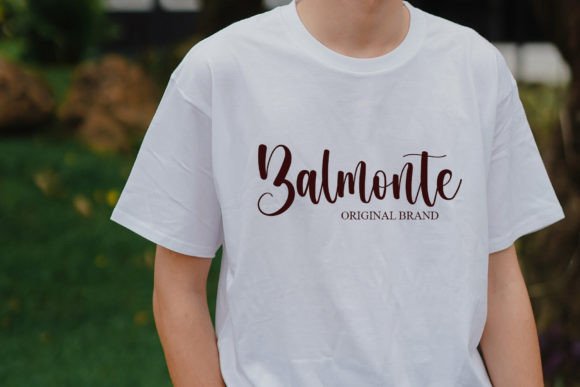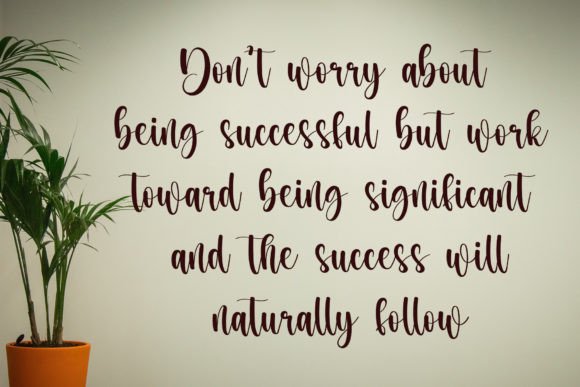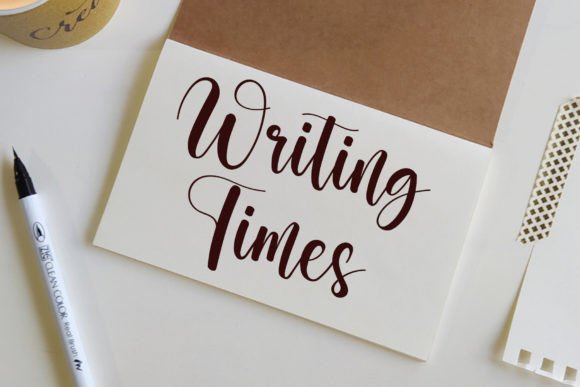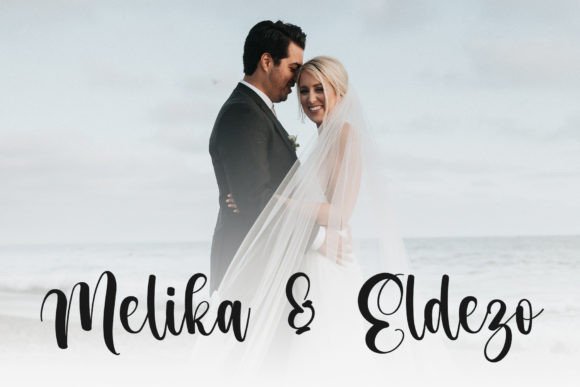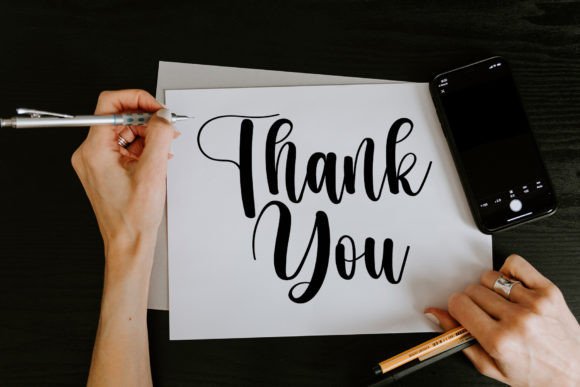
Introducing Beswick Font: Elevate Your Designs with a Stylish and Modern Handwritten Touch
In the world of design, fonts play a crucial role in conveying the tone and personality of a brand or project. If you’re looking for a stylish and modern handwritten font that can add a touch of happiness to your creations, look no further than Beswick Font. This versatile font is perfect for a wide range of applications, from greeting cards to headlines, branding, and packaging.
What Makes Beswick Font Special?
Beswick Font is a beautifully crafted handwritten font that boasts a unique and stylish aesthetic. Its modern design makes it perfect for designers and crafters who want to add a touch of sophistication and elegance to their work. Whether you’re creating a greeting card, a brand logo, or packaging design, Beswick Font is sure to impress.
One of the standout features of Beswick Font is its PUA (Private Use Area) encoding. This means that you can access all of the amazing glyphs and ligatures with ease, giving you complete creative control over your designs. With PUA encoding, you can effortlessly switch between different characters and glyphs, allowing you to create unique and eye-catching designs that showcase your creativity.
The Benefits of Using Beswick Font
So why choose Beswick Font for your next design project? Here are just a few benefits of using this amazing font:
- Versatility: Beswick Font is suitable for a wide range of applications, from greeting cards to headlines, branding, and packaging. Its versatility makes it a great addition to any designer’s font library.
- Ease of use: With PUA encoding, accessing glyphs and ligatures is a breeze. This means you can focus on creating amazing designs rather than getting bogged down in complicated font mechanics.
- Unique aesthetic: Beswick Font boasts a stylish and modern handwritten aesthetic that’s sure to elevate your designs. Its unique look and feel will help your projects stand out from the crowd.
- Happiness touch: As the font’s description says, Beswick Font is designed to add a “happiness touch” to your creations. Its friendly and approachable vibe makes it perfect for designs that need to convey a sense of warmth and personality.
How to Use Beswick Font in Your Designs
Using Beswick Font in your designs is easy. Here are a few tips to get you started:
- Pair it with other fonts: Beswick Font pairs well with a range of other fonts, from clean sans-serifs to elegant scripts. Experiment with different combinations to find the perfect look for your project.
- Play with glyphs and ligatures: With PUA encoding, you can easily access a range of glyphs and ligatures that will add visual interest to your designs. Don’t be afraid to get creative and try out new combinations.
- Use it for headlines and titles: Beswick Font is perfect for headlines and titles, where its stylish and modern aesthetic can really shine. Use it to add a touch of personality to your designs and make them more engaging.
In conclusion, Beswick Font is a stylish and modern handwritten font that’s perfect for designers and crafters who want to add a touch of elegance and sophistication to their work. With its PUA encoding and range of glyphs and ligatures, this font offers endless creative possibilities. Whether you’re creating greeting cards, headlines, branding, or packaging, Beswick Font is sure to bring a happiness touch to your designs.